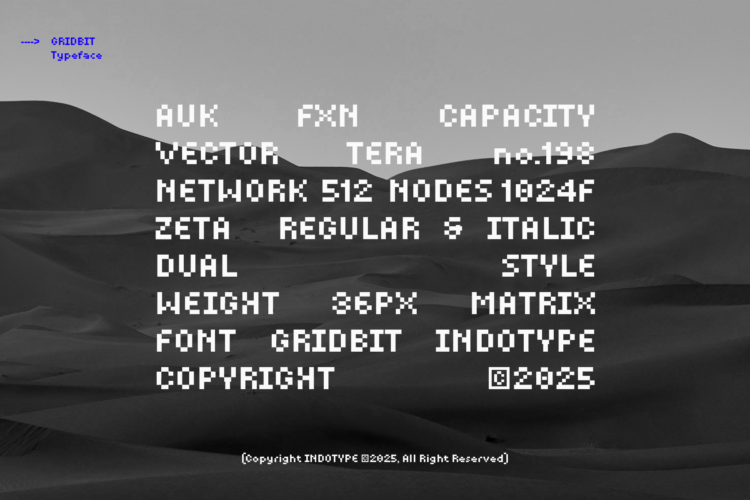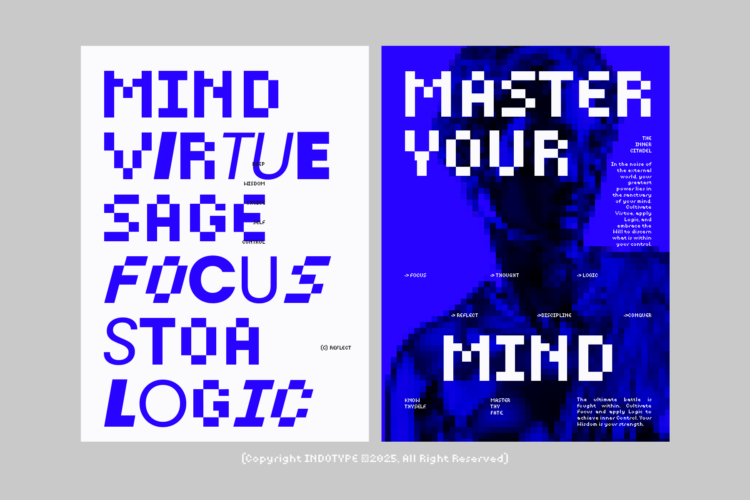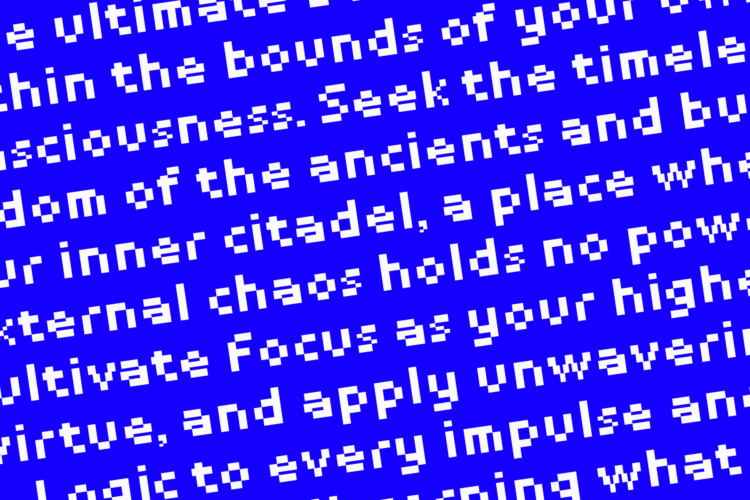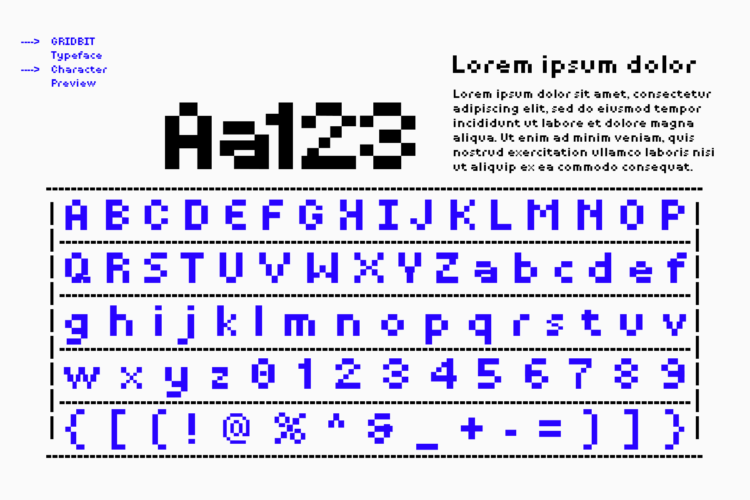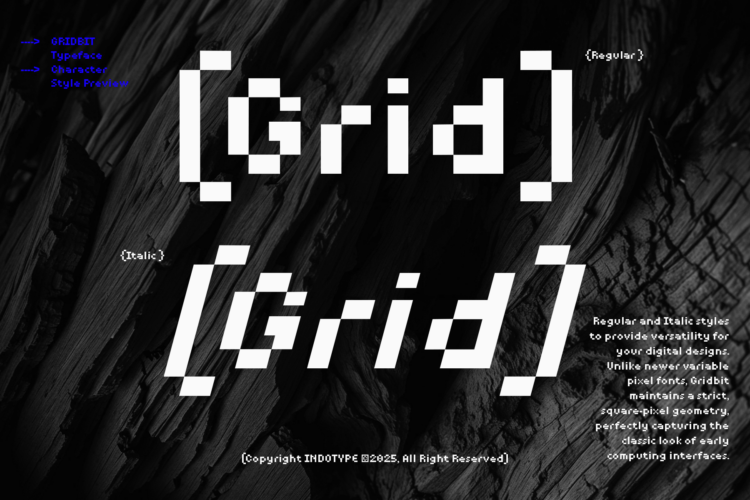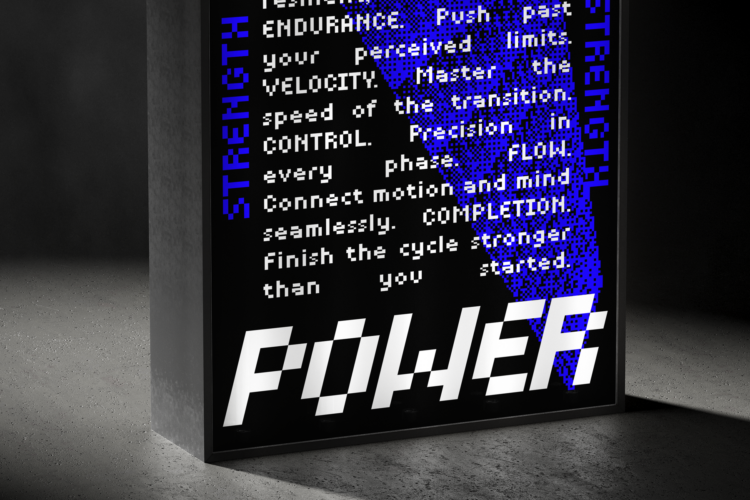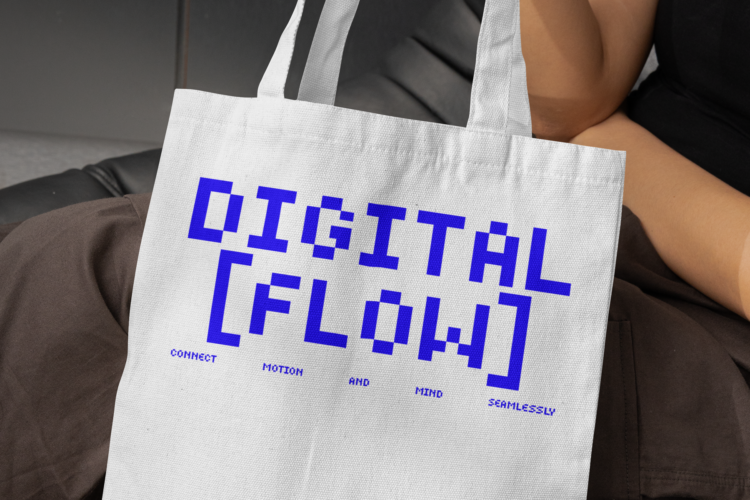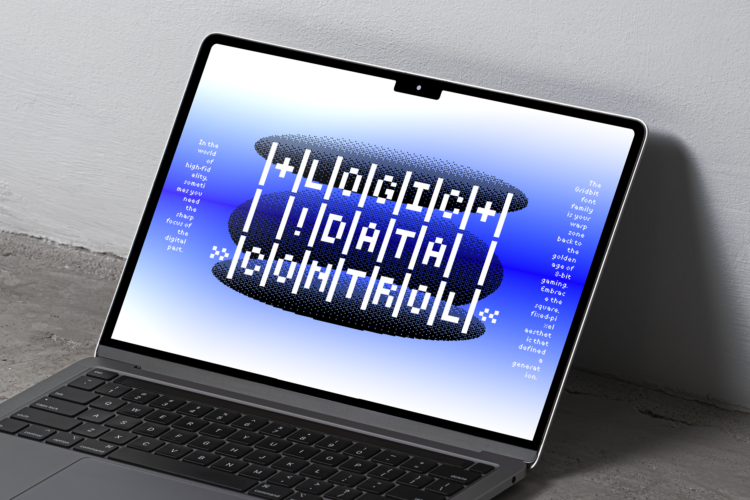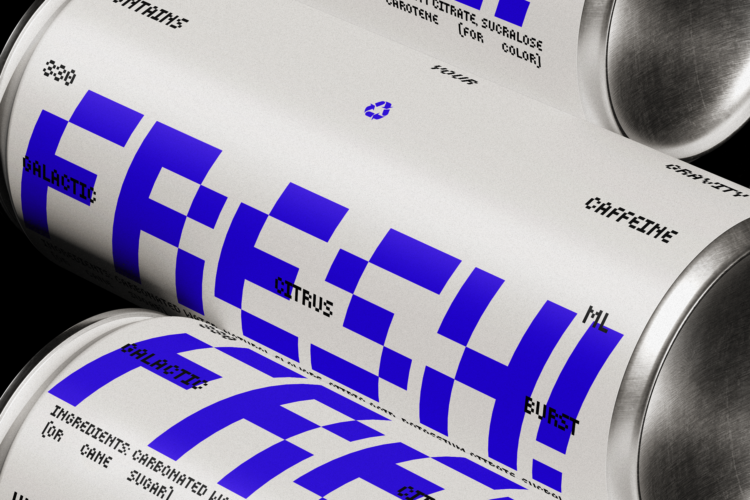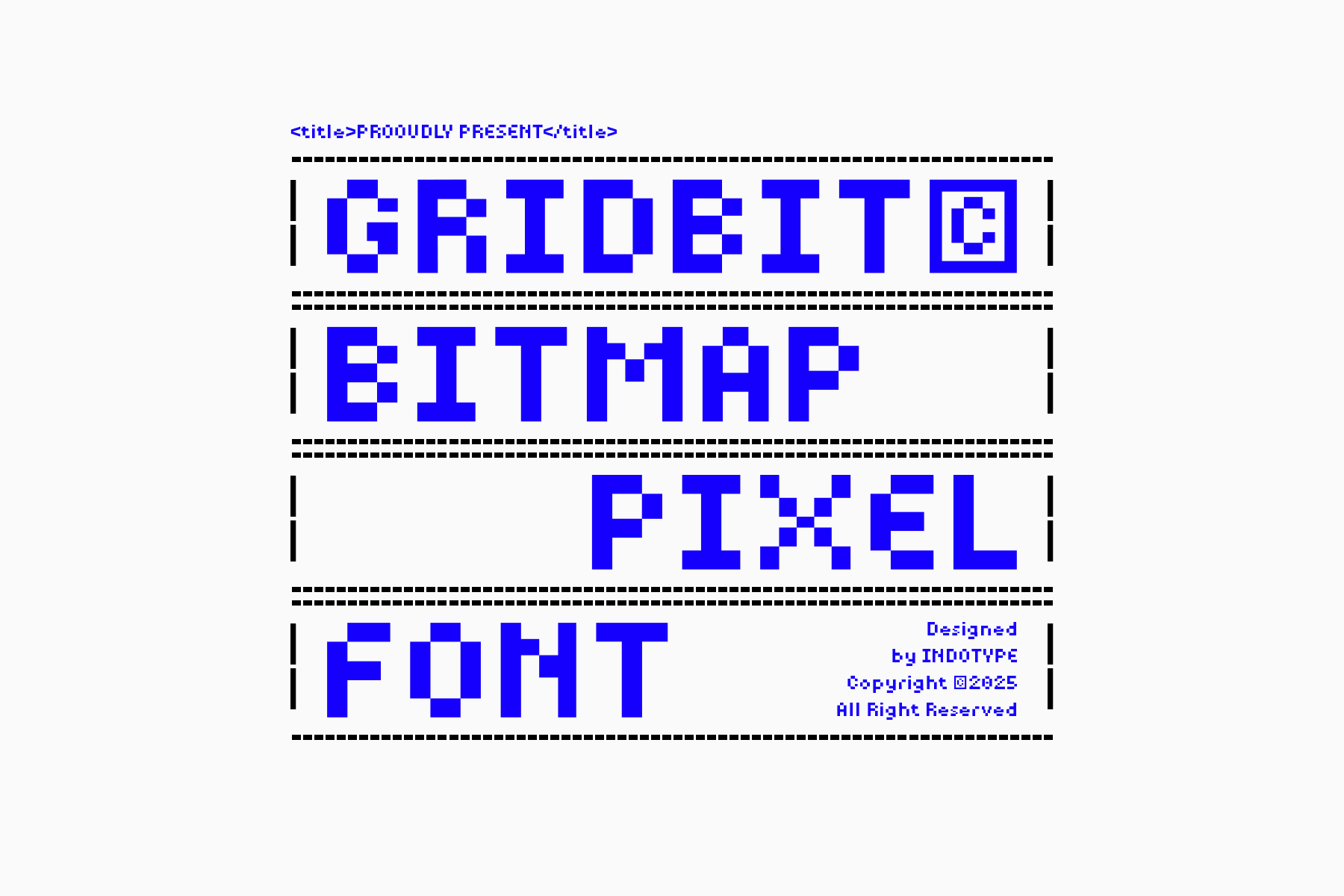
Bitmap-Pixel-Font
Gridbit Regular
Gridbit Italic
Gridbit is a meticulously crafted bitmap pixel font that transports you back to the golden age of digital design. Built on a precise grid system, every character is a love letter to the 8-bit and 16-bit eras, evoking the raw charm of early video games, classic computer interfaces, and the dawn of the web. Its chunky, aliased edges and limited resolution are not flaws—they are its defining features, delivering an authentic retro aesthetic that cannot be replicated with modern anti-aliasing. This font is the ultimate tool for designers seeking to inject nostalgia, digital grit, and a lo-fi personality into their projects. Perfect for game development (especially retro and indie titles), cyberpunk graphics, tech-themed branding, and any design that thrives on a digital punk or nostalgic vibe. Gridbit doesn’t just look retro; it feels authentic, offering a direct connection to the foundational visual language of the digital world.
• Classification: Bitmap, Pixel, Monospaced, Display, Retro.
• Attributes: Nostalgic, Digital, Raw, Authentic, Geeky, Playful, Retro-Futuristic.
• Regular and Italic Style
Gridbit – Bitmap Pixel Font